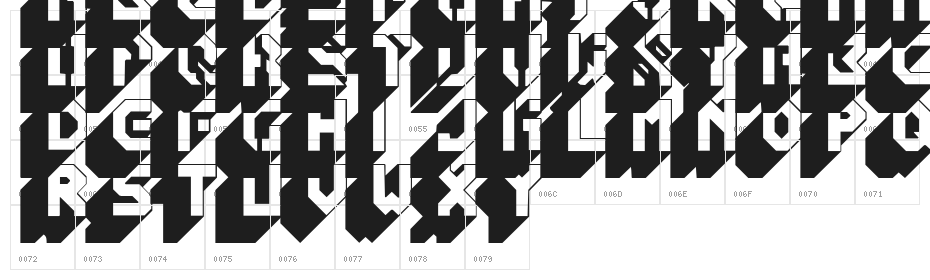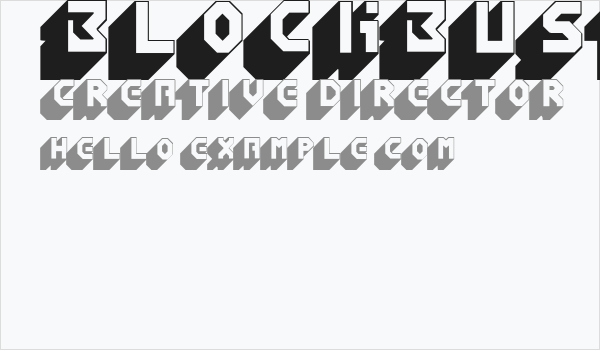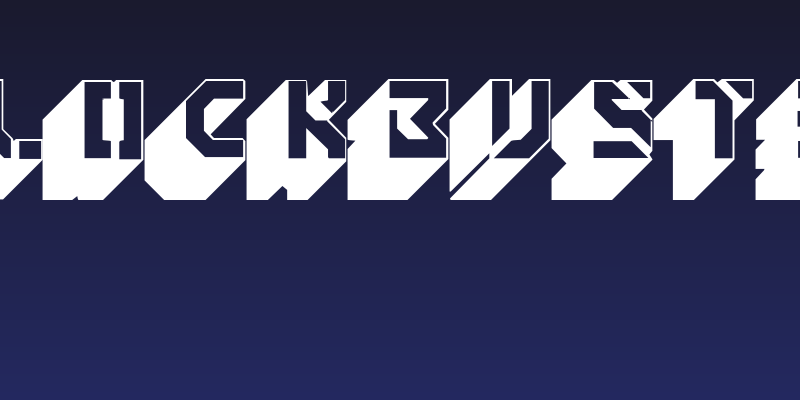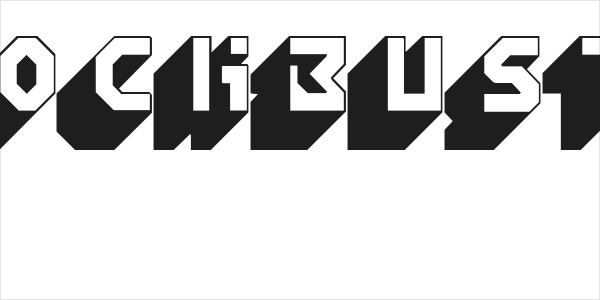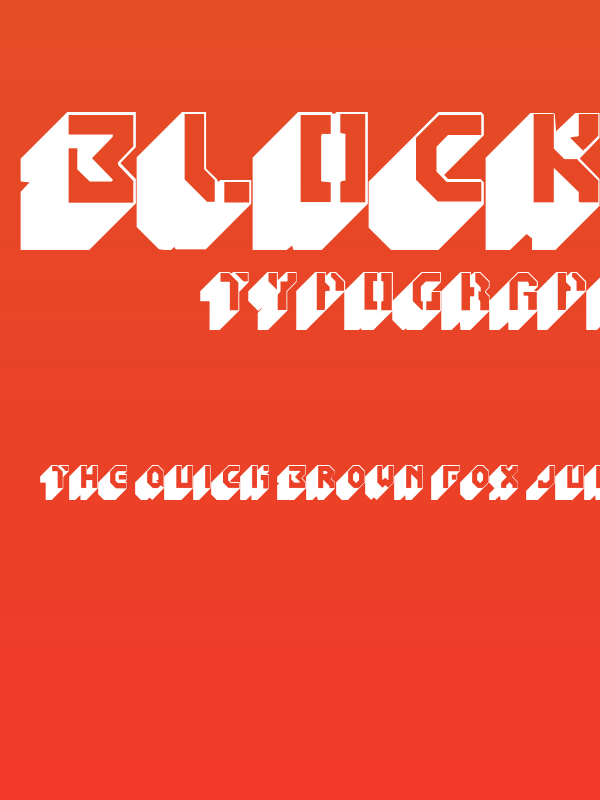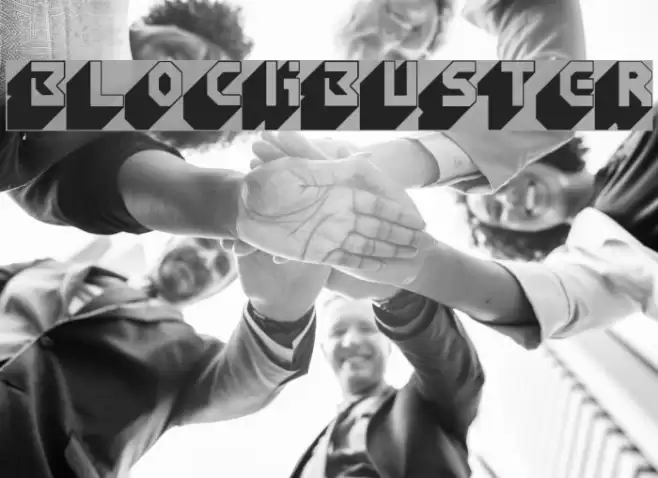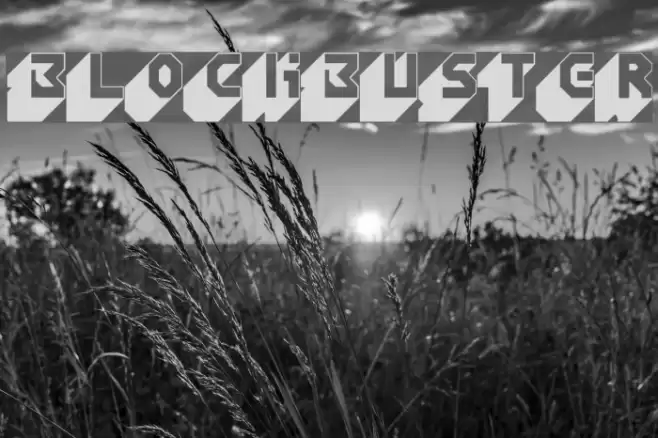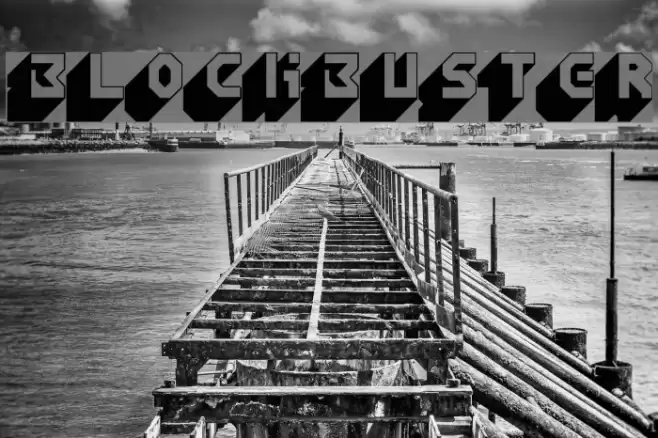
Blockbuster Font
✎ 3D
| Projets proposés | Ideal for movie posters, video game titles, branding for tech companies, and any project needing a bold, futuristic look. |